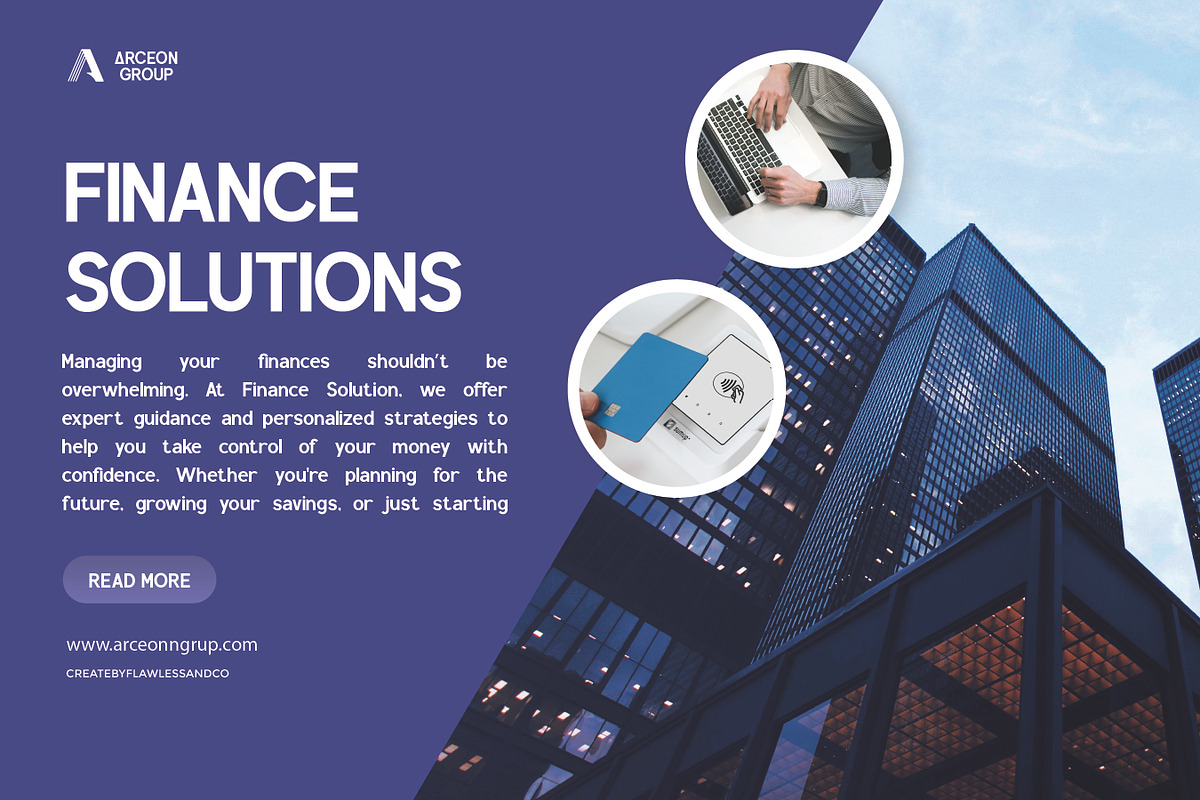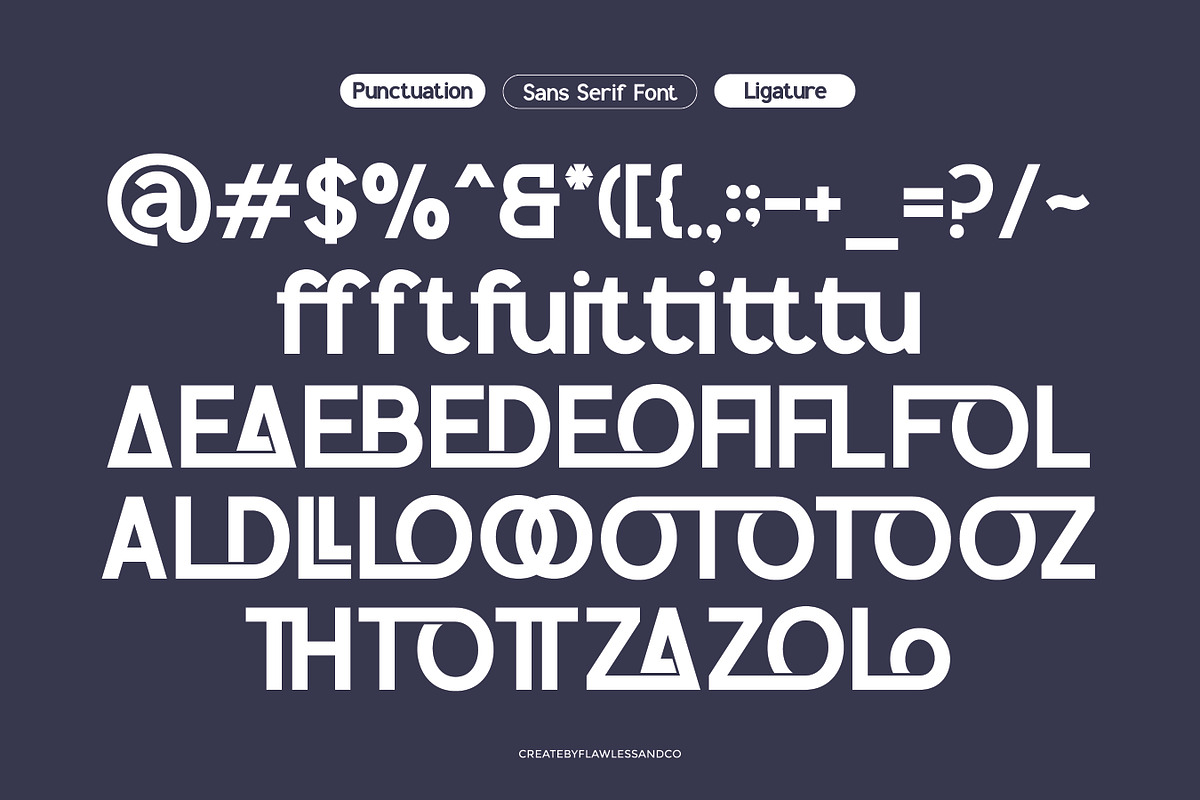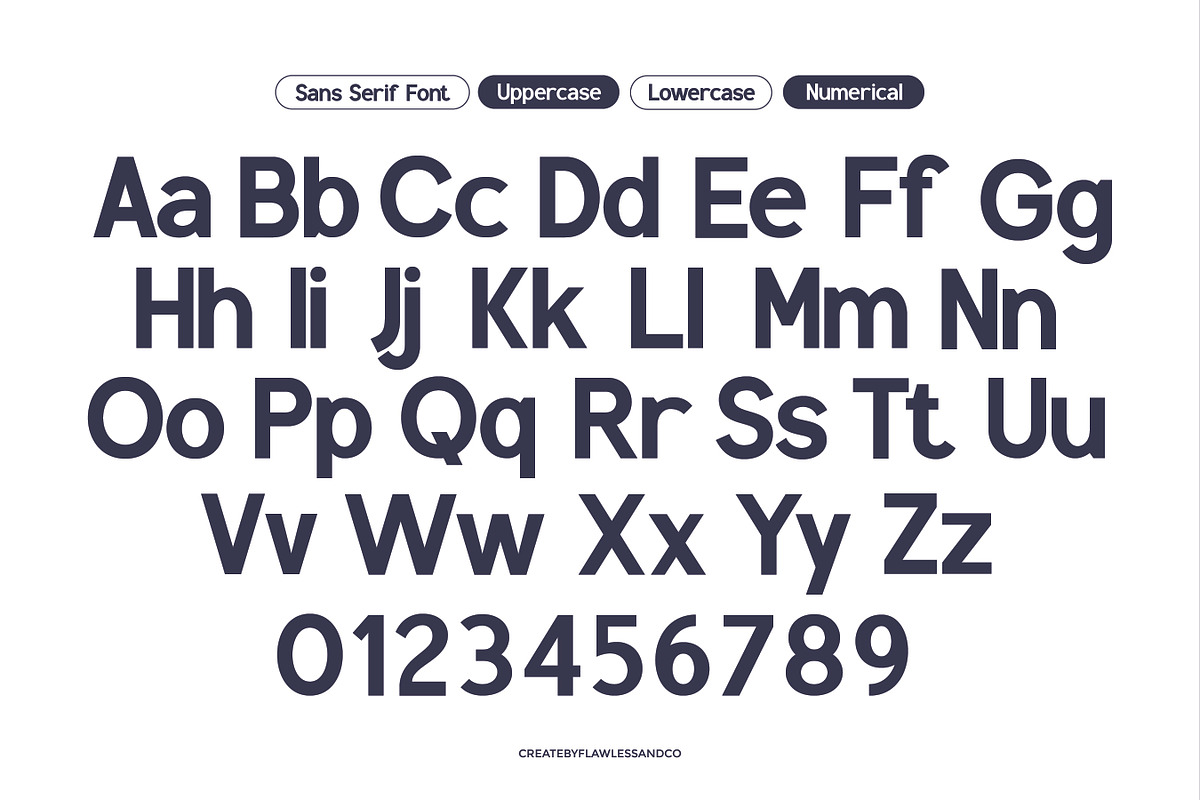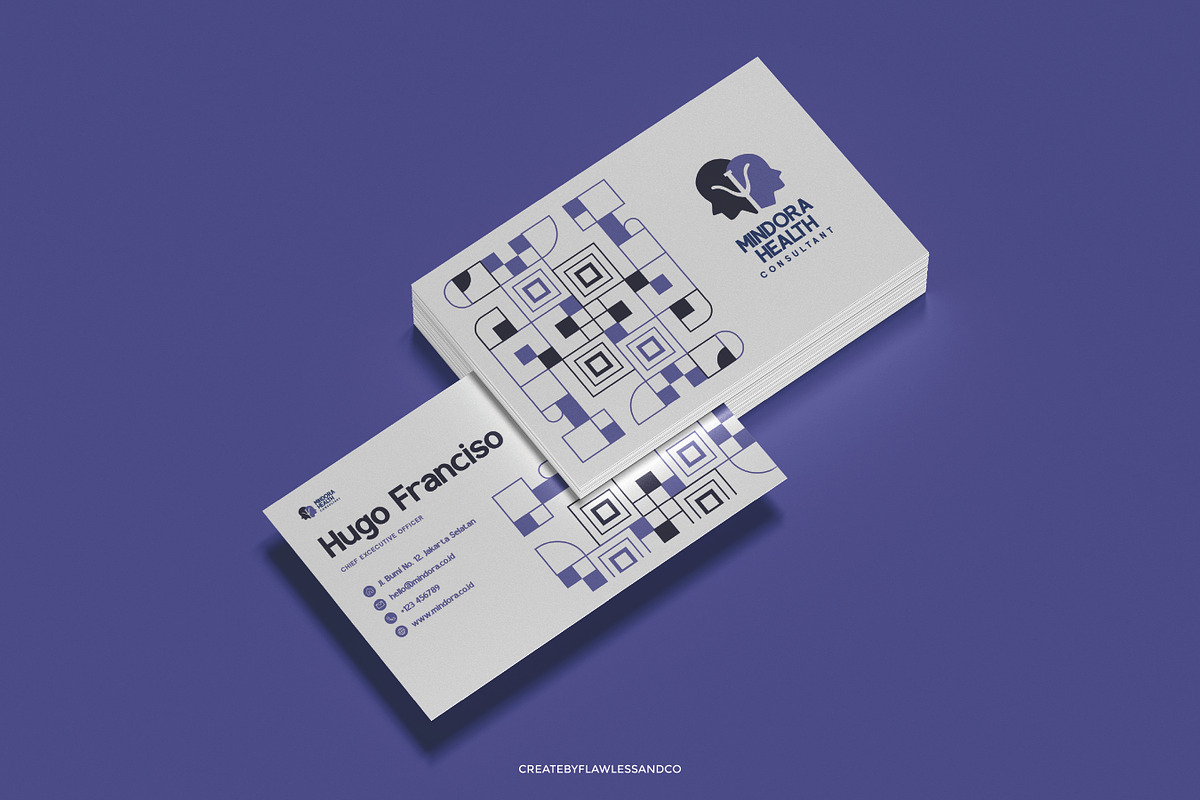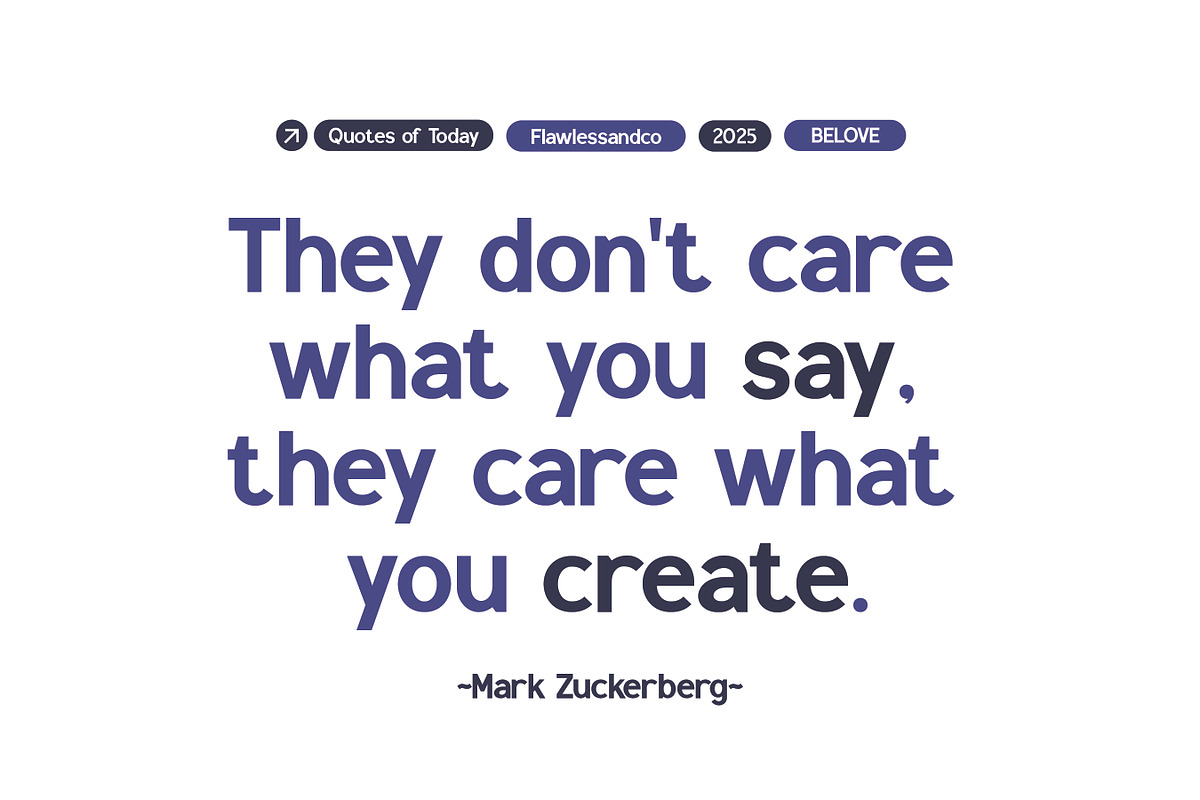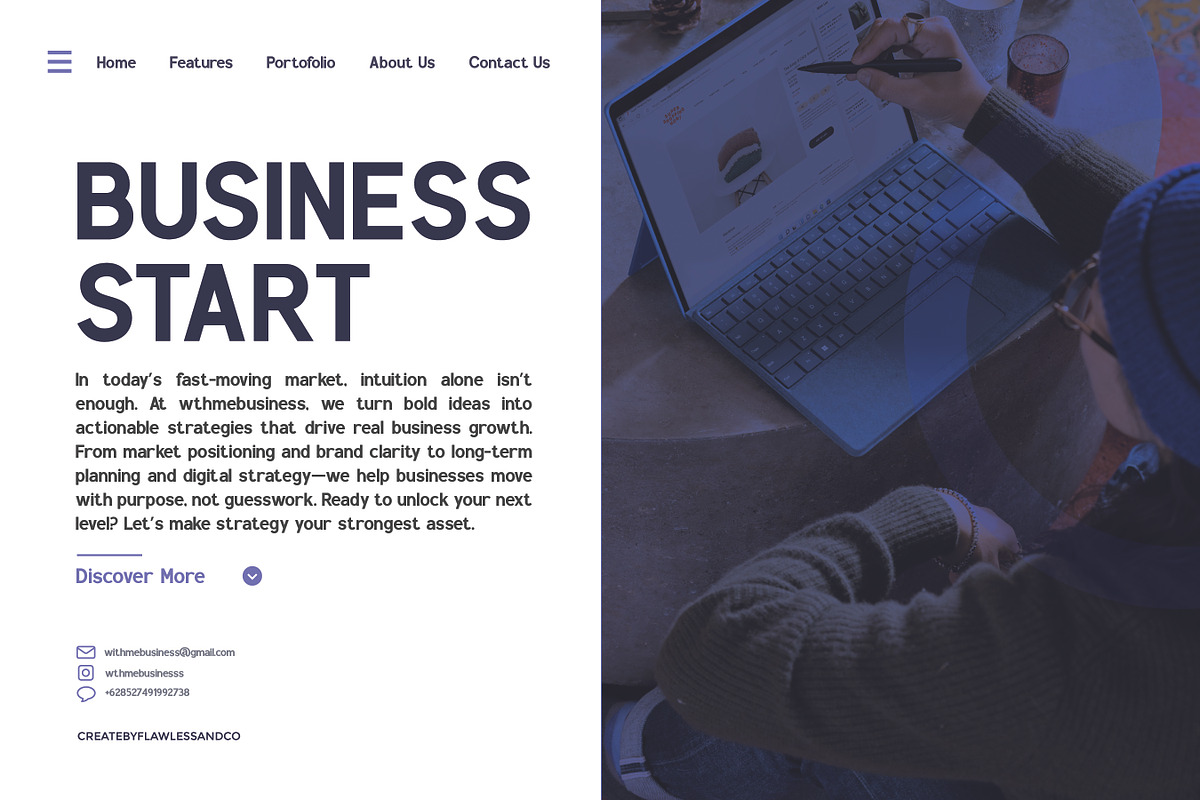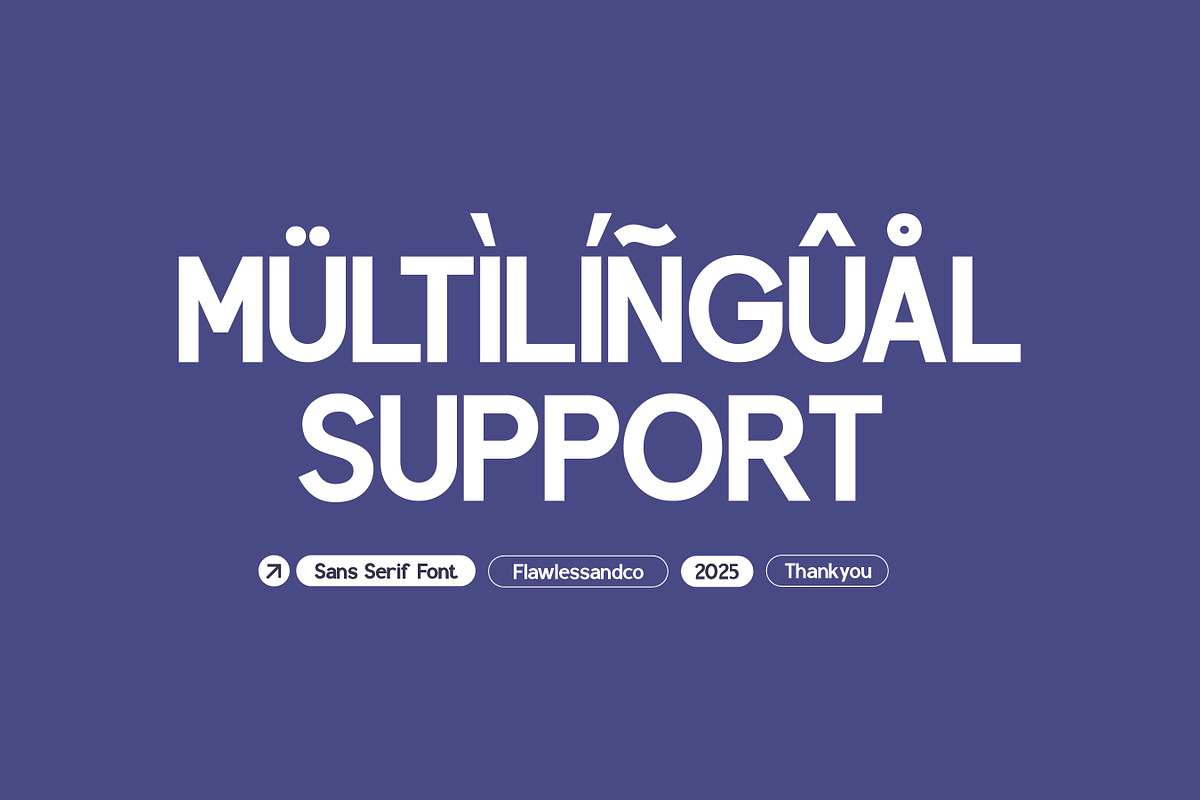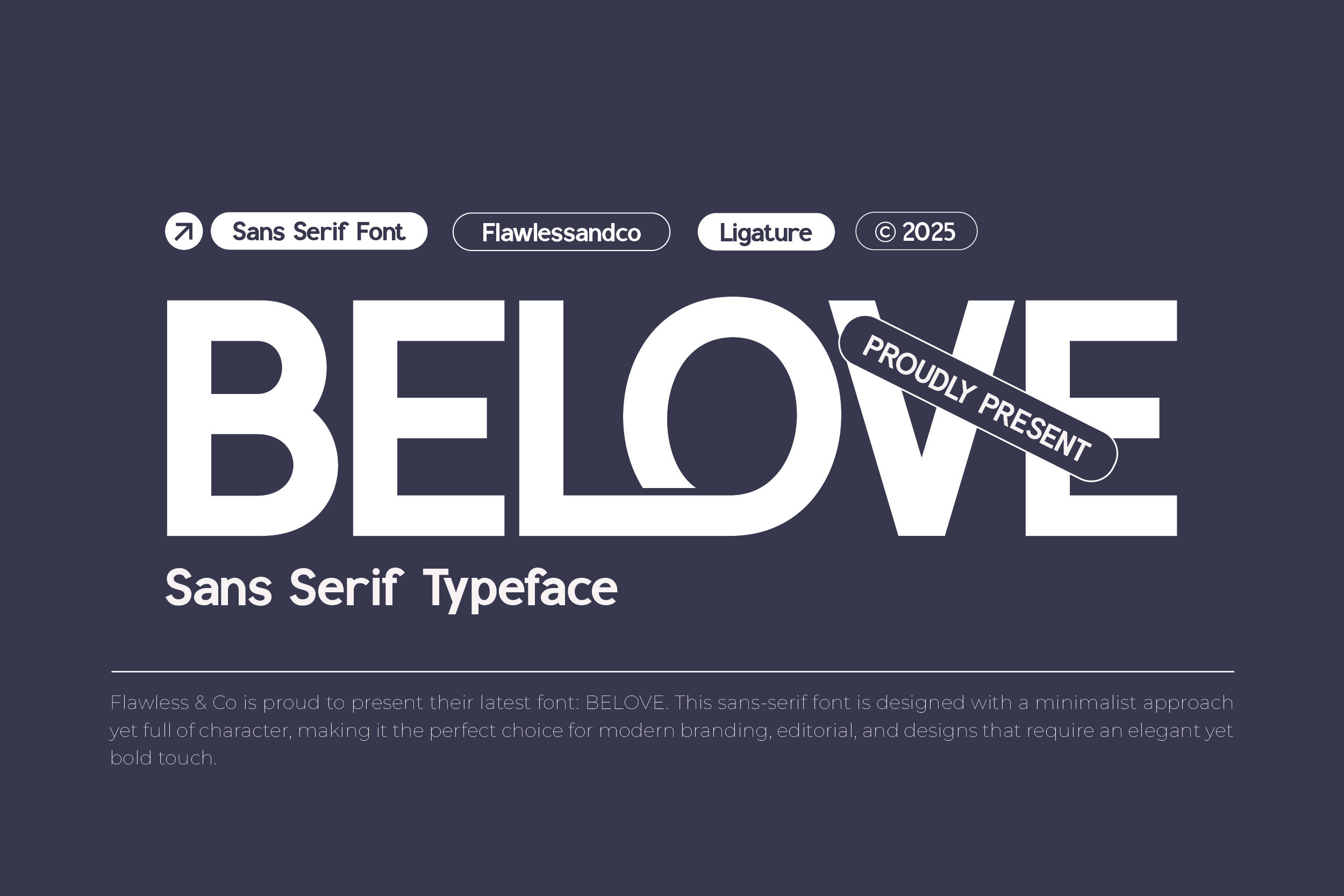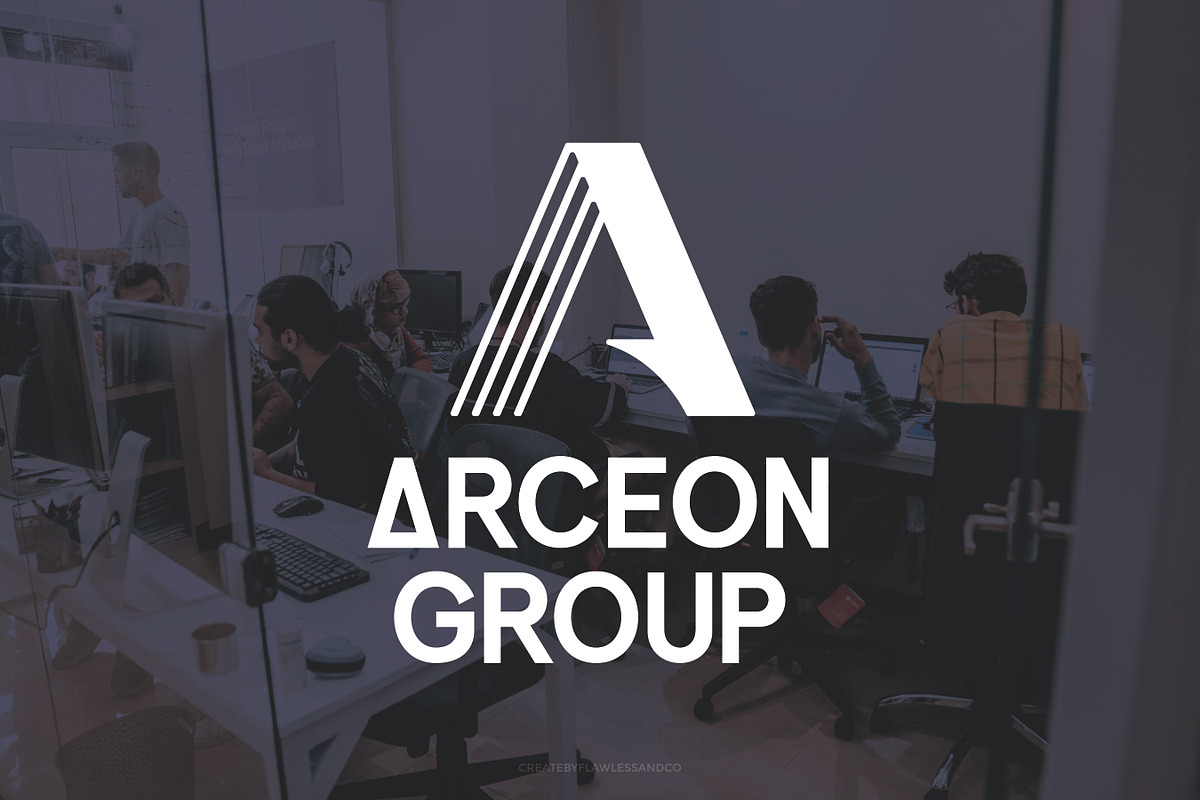
Belove - Sans Serif Font
Belove — Sans Serif Typeface
Belove is a clean and modern sans serif typeface designed for clarity, versatility, and visual impact. With its smooth curves, balanced spacing, and minimal yet refined structure, Belove is ideal for a wide range of creative and professional applications—from custom book designs and editorial layouts to brand identities and business-focused projects. This font was created to be highly functional while still feeling warm and approachable. Whether you're building a personal brand, designing marketing materials, or developing a creative product, Belove offers the flexibility and elegance you need to make your work stand out.
- Stylish alternates for custom feel
- Complete punctuation & numerals
- Custom book layouts & cover design
- Modern branding & minimalist logos
- Clean, professional business presentations
- Lifestyle & personal brand projects
- Social media content & visual marketing
- Elegant product packaging & stationery
Who Should Use Belove?
Belove is perfect for creatives, entrepreneurs, and professionals who need a modern and versatile typeface that works across a variety of visual styles and industries.
This font is made for:
- Brand designers crafting clean, stylish identities
- Creative business owners needing a professional yet friendly typeface
- Book layout artists and self-publishers looking for modern typography
- Marketing teams building consistent, elegant brand visuals
- Social media creators aiming for sleek and minimalist aesthetics
- Product packaging designers seeking clarity and sophistication
- Startups & small businesses that want their branding to feel polished and timeless
If your work values both structure and emotion, clarity and creativity — Belove is made for you.
A Must-Have Font for Brand, Logo, Business Creators, and Designers
Belove is the perfect sans serif typeface that combines modern elegance with versatility. Whether you're crafting a brand identity, designing a logo, or working on business projects, Belove delivers clarity and style to make your creations truly stand out.
Why Choose Belove for Brand, Logo, and Business Projects?
Belove is more than just a font — it’s a design tool crafted to empower your brand and business communications with clarity, professionalism, and style. Here’s why Belove stands out as the ideal choice:
- Clean and Modern Design Belove’s sleek, sans serif style offers a timeless and sophisticated look that fits perfectly with contemporary branding and logo design. Its clean lines ensure your message is communicated clearly without distractions.
- Versatile and Flexible Whether you’re designing a bold logo, crafting elegant business documents, or building a consistent brand identity, Belove adapts effortlessly. Its range of uppercase, lowercase, and stylish alternate characters give you creative freedom.
- Professional Readability Perfectly balanced spacing and smooth curves make Belove highly readable at any size—crucial for logos, presentations, and marketing materials that must catch attention instantly.
- Brand identities and logo design
- Business presentations and corporate materials
- Editorial layouts and custom book designs
- Lifestyle and personal branding projects
- Social media graphics and marketing content
- Product packaging and elegant stationery